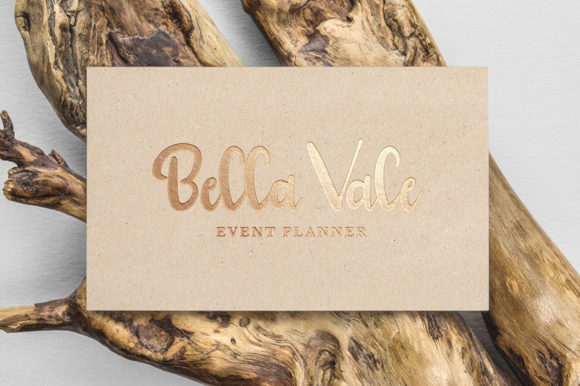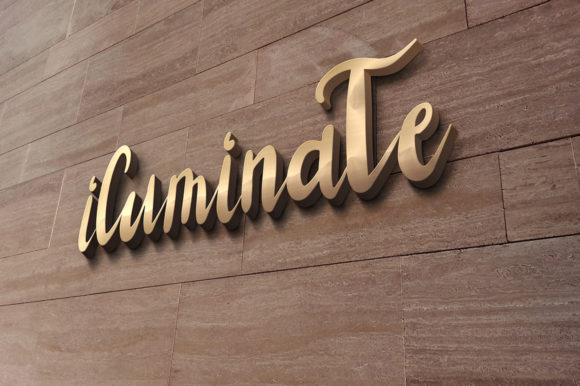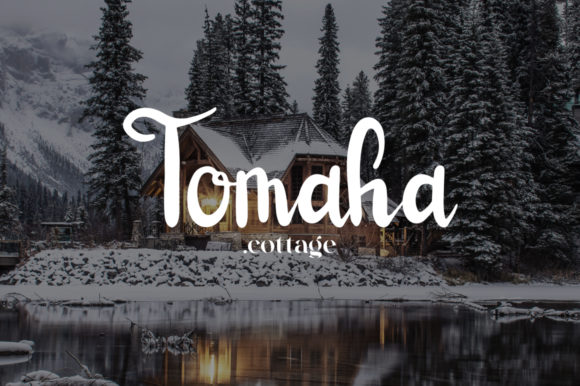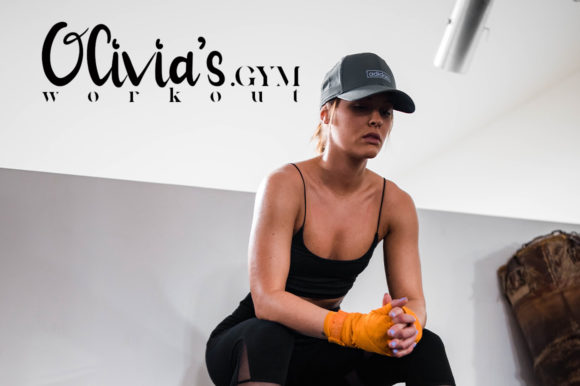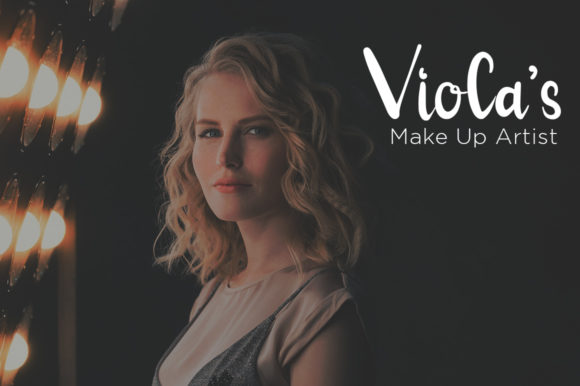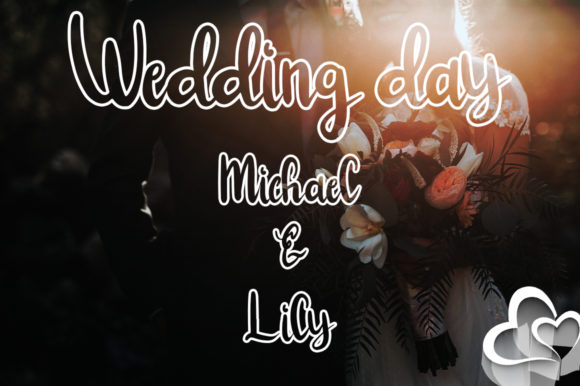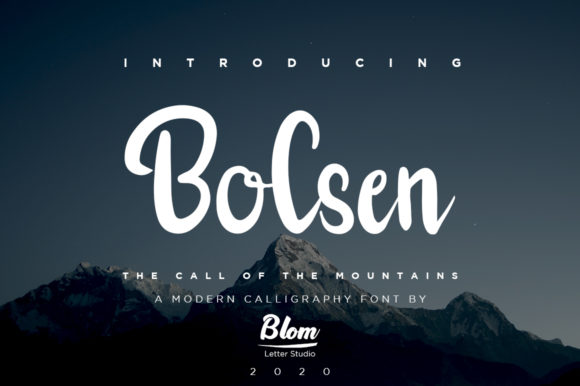
Bolsen Font: Elevate Your Designs with Elegance and Friendliness
In the world of typography, a font can make or break a design. It’s the foundation upon which the entire visual aesthetic is built. For designers and crafters seeking to create original and outstanding designs, the Bolsen Font is an exceptional choice. This magical handwritten font is carefully crafted with a touch of elegance, blending classic style with a friendly feel.
The Essence of Bolsen Font
Bolsen Font is a masterpiece of typographic artistry. Its classic style is reminiscent of traditional handwritten fonts, yet it boasts a unique flair that sets it apart from more conventional typefaces. The font’s elegance is palpable, making it an ideal selection for designs that require a level of sophistication. Whether you’re working on a branding project, a wedding invitation, or a craft project, Bolsen Font is sure to impress.
Key Features of Bolsen Font
- Classic Style: Bolsen Font features an incredibly classic style that evokes a sense of nostalgia and timelessness.
- Elegant Touch: The font’s elegant touch adds a level of sophistication to any design, making it perfect for high-end branding and luxury projects.
- Friendly Feel: Despite its classic and elegant nature, Bolsen Font still maintains a friendly feel, making it approachable and relatable.
- Versatility: This font is incredibly versatile, suitable for a wide range of design applications, from digital projects to print materials.
Why Choose Bolsen Font?
With so many fonts available, why should you choose Bolsen Font for your next design project? Here are just a few compelling reasons:
- Unique and Original: Bolsen Font offers a distinctive and original style that will set your designs apart from the crowd.
- Easy to Read: The font’s clarity and legibility make it easy to read, even at smaller sizes.
- Highly Customizable: Bolsen Font can be easily customized to suit your design needs, allowing you to experiment with different styles and effects.
- Time-Saving: With Bolsen Font, you can save time and effort in your design process, as the font’s elegance and friendliness eliminate the need for extensive styling and formatting.
Design Applications for Bolsen Font
Bolsen Font is an incredibly versatile typeface, suitable for a wide range of design applications. Here are some ideas to get you started:
- Branding and Logo Design: Use Bolsen Font to create a sophisticated and memorable brand identity.
- Wedding and Event Invitations: Add a touch of elegance to your wedding or event invitations with Bolsen Font.
- Digital and Print Materials: Use Bolsen Font in digital projects, such as social media graphics, and print materials, like brochures and business cards.
- Crafting and DIY Projects: Bolsen Font is perfect for crafters and DIY enthusiasts, adding a personal touch to handmade projects and products.
In conclusion, Bolsen Font is a magical handwritten font that offers the perfect blend of elegance and friendliness. Its classic style and versatility make it an exceptional choice for designers and crafters seeking to create original and outstanding designs. Whether you’re working on a branding project, a wedding invitation, or a craft project, Bolsen Font is sure to elevate your designs to the next level.